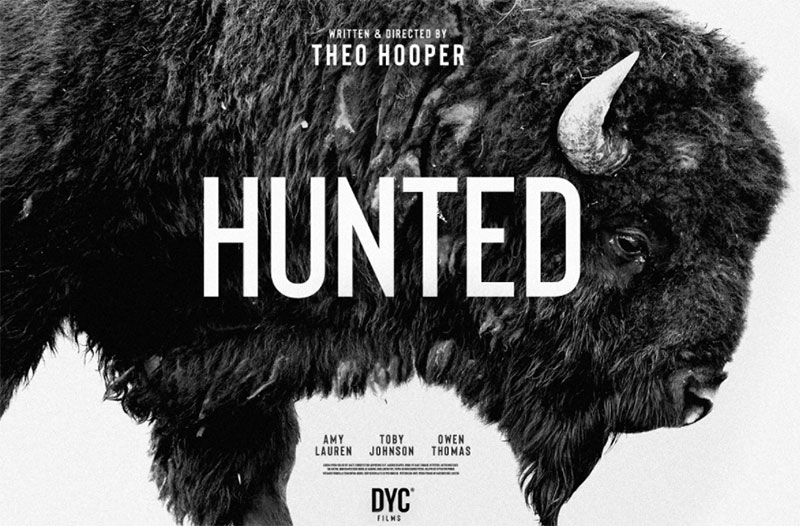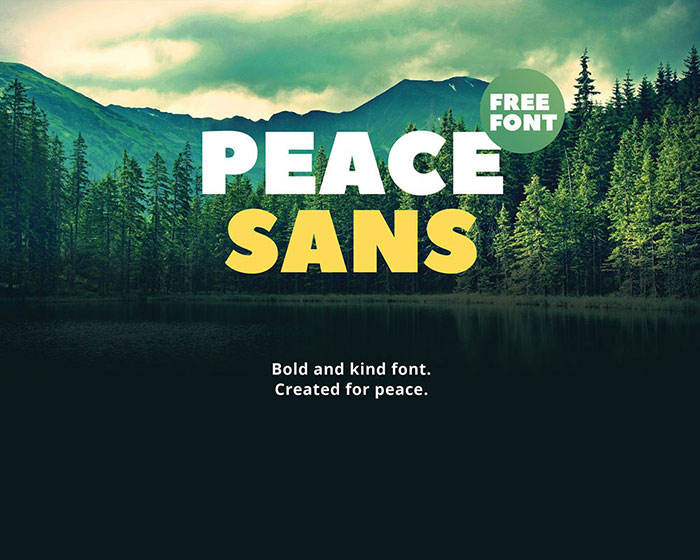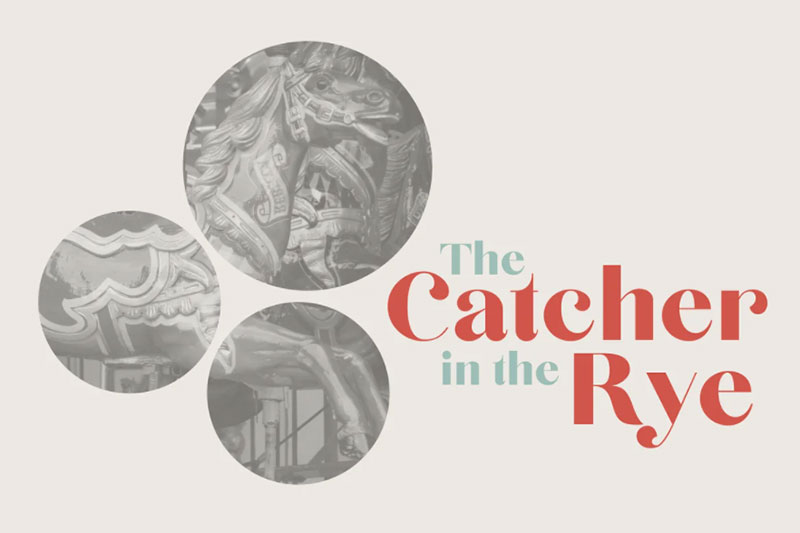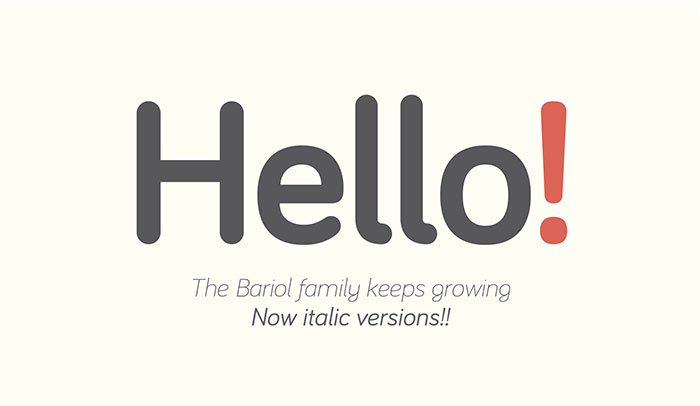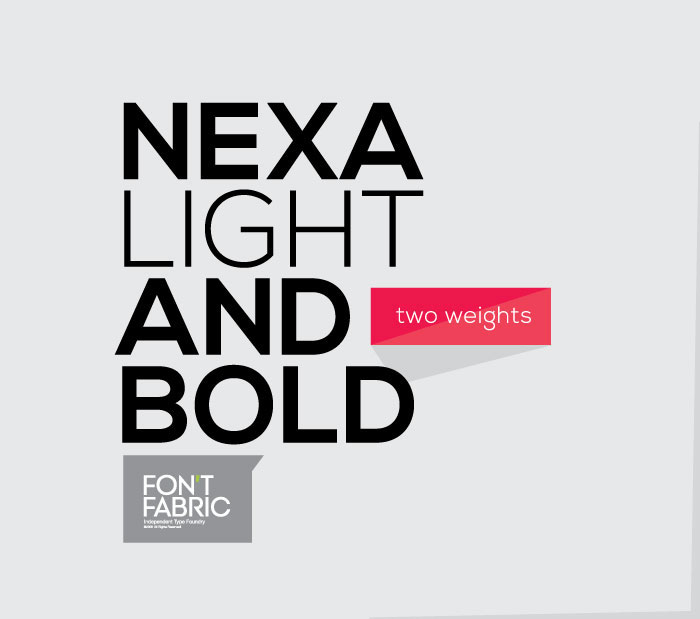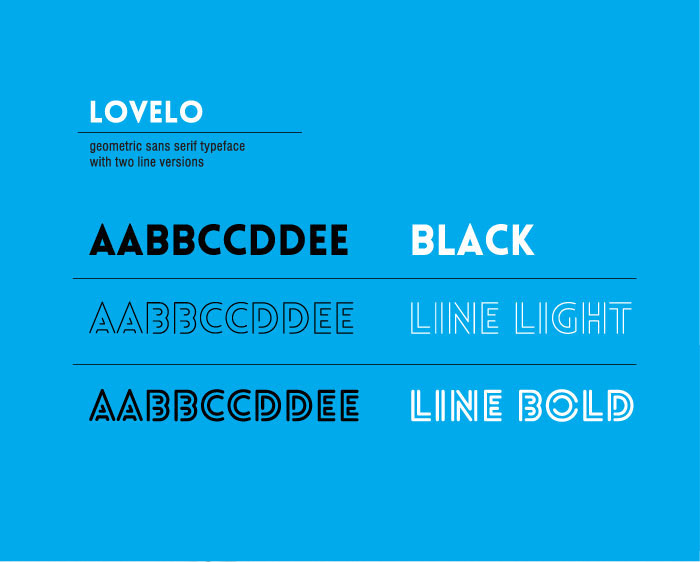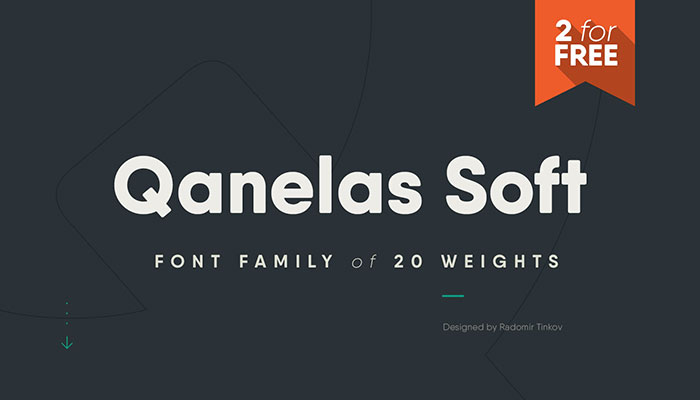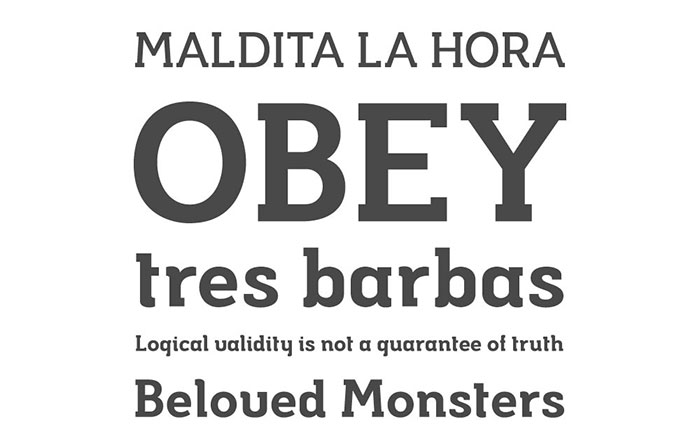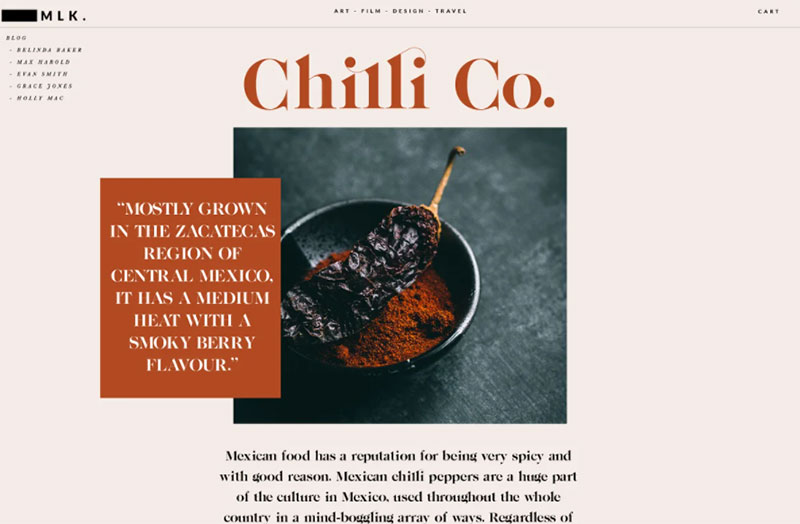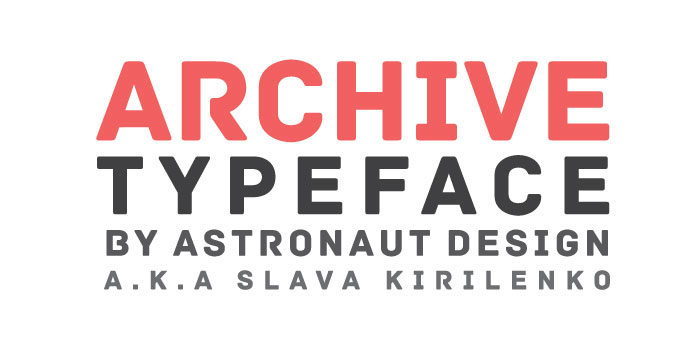
Step into the realm of bold fonts examples, where each character vies for the spotlight, yet only the boldest triumph. Imagine the alchemy that empowers certain phrases to leap off the page and captivate the imagination—this is the landscape we traverse.
Enlisted in this visual odyssey is the essence of contrast, the whispers of typography design reaching crescendos, the shapers of digital narratives.
Through this virtual canvas, an understanding unfolds not merely of how bold fonts amplify message and meaning, but why they do so.
Expect to walk away with a rich arsenal of impactful typeface selections curated to carve intention into the digital stone.
From the bravado of header fonts to the finesse of brand identity, the elements beckon. We’ll disentangle the threads of visual hierarchy, decode the syntax of digital clarity, and emerge with the fluent literacy of font aesthetics.
Bold fonts to download
| Font | Category | Style | Serif/Sans-serif | Notable Attributes |
|---|---|---|---|---|
| Aleo | Web, Print | Text | Serif | Soft lines, semi-rounded |
| Peace Sans | Display | Sans-serif | Friendly, bold |
| Mosk | Display | Sans-serif | Ultra-thin to ultra-bold |
| Bariol | Web, Print | Sans-serif | Rounded |
| Nexa | Display, Web | Sans-serif | Geometric, clean |
| Morton Typeface | Text | Sans-serif | 1920s newspaper style | |
| Lovelo font | Display | Sans-serif | Geometric, retro |
| Qanelas Soft Typeface | Display, Web | Sans-serif | Modern, friendly |
| Musket | Display | Serif | Sturdy, traditional |
| Archive | Display, Web | Sans-serif | Contemporary, sharp |
| Zaguatica | Display | Sans-serif | Quirky, bold |
| Aquino | Print, Web | Sans-serif | Modern, bold |
| Biko Font Family | Print, Web | Sans-serif | Geometric, strong |
| Frank font family | Print, Web | Sans-serif | Versatile, neutral |
| ADAM.CG PRO | Logo, Display | Sans-serif | Sharp, modern |
| Anson | Print, Web | Sans-serif | Inspired by British twin-engine bombers |
| League Gothic | Display, Web | Sans-serif | Tall and narrow |
| Fela – Free Font | Display | Serif | Bold, expressive |
| Sheep Sans | Display, Web | Sans-serif | Warm, rounded |
| Glamor – Chic & Modern | Print, Web | Serif | Fashionable, elegant |
| Verb | Print, Web | Sans-serif | Energetic, robust |
| Source Sans Pro | Print, Web | Sans-serif | Professional, versatile |
| Phenomena font | Display, Web | Sans-serif | Modern, geometric |
| Hanken Round | Print, Web | Sans-serif | Soft, friendly |
| Nevis | Print, Web | Sans-serif | Strong, assertive |
| Ostrich Sans | Display, Web | Sans-serif | Tall, skinny |
| Code Free Font | Web, Print | Sans-serif | Sleek, minimalistic |
| Oswald | Print, Web | Sans-serif | Re-working of classic style |
| Cabin | Print, Web | Sans-serif | Humanist, open |
| Lato | Print, Web | Sans-serif | Transparent, strong |
| BONKERS | Print, Display | Sans-serif | Thick and playful |
| MUNICIPAL | Display | Sans-serif | Urban, contemporary |
| Varela | Print, Web | Sans-serif | Elegant, functional |
| Myra free font | Print, Web | Sans-serif | Vivid, modern |
| Hammersmith One | Print, Web | Sans-serif | Contemporary, readable |
| Manteka | Display, Web | Sans-serif | Functional, clean |
| Movavi Grotesque Black | Display | Sans-serif | Bold, impactful |
Now let’s look at them in detail.
Aleo
Aleo is a free impact font with a contemporary typeface designed by Alessio Laiso as the slab serif companion to the Lato font by Łukasz Dziedzic.
Aleo has semi-rounded details and a sleek structure, making it a strong font while still keeping readability high. The family comprises six styles: three weights (light, regular and bold) with corresponding true italics.
Bison
Bison is a strong font family and sophisticated sans serif. Inspired by the animal, its sturdy uncompromising style is felt through the controlled letterforms and modern touches. A balance of hard lines and smooth curves. Each font in the family can stand on its own, dynamic and authoritative in its own right.
Peace Sans
Peace Sans is a bold text font made with love! It can make your typography more peaceful and kind. Use it anyway, it’s absolutely free.
Mosk
Mosk is a typeface family that consists of lowercase letters and edited versions in the uppercase version, for your logos and designs, Mosk makes great display fonts.
Chloe
Create bold, gorgeous headlines and elegant designs with a vintage flair. Chloe’s contrasting lines and curved terminals give a sleek, elegant look to logos, holiday cards, wedding invitations, quotes, advertisements, and more. Chloe is a versatile typeface that’s full of character and one you’ll come back to time and again. Create something beautiful today with Chloe.